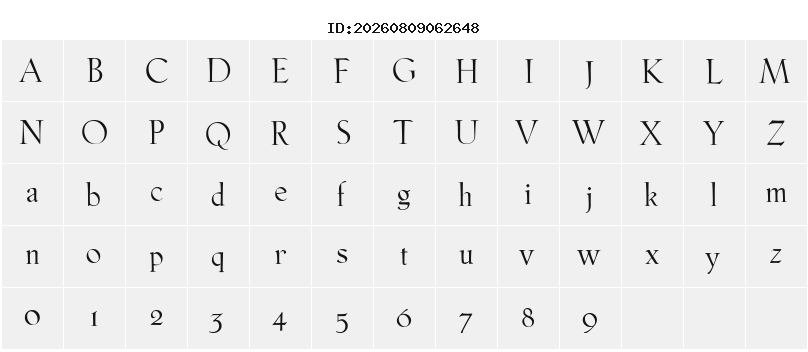
• Font Name: PhaistosRoman
• Full Font Name: PhaistosRoman
• PostScript Name: PhaistosRoman
• Character Count: 251
About PhaistosRoman.ttf
PhaistosRoman.ttf is a modern, elegant sans-serif font designed for ultimate readability and visual harmony. Perfect for branding, headlines, web design, and print materials.